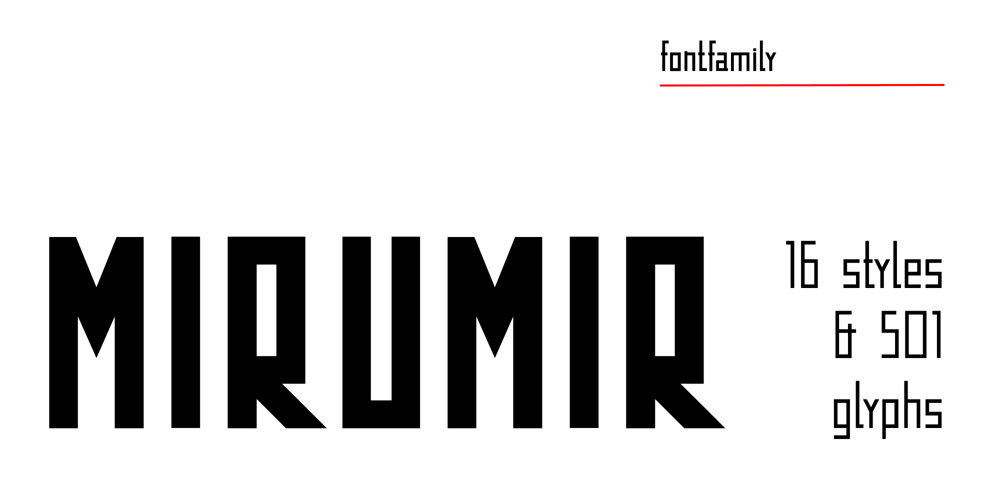
Mirumir Font Family was designed by Matthew Grouss, Ksenia Churilova, Pavel Nevsky and published by Spacemotion. Mirumir contains 2 styles and family package options. MIRUMIR is a variable display grotesk typeface which has latin, cyrillic and hebrew scripts. It comes in 16 weights and its matching italics It contains 451 characters. Designed with powerful opentype features in mind. Each weight includes extended language support (+ Cyrillic), fractions, tabular figures, arrows, ligatures and more. Perfectly suited for graphic design and any display use. It could easily work for web, signage, corporate, newspaper, display, magazines as well as for editorial design.